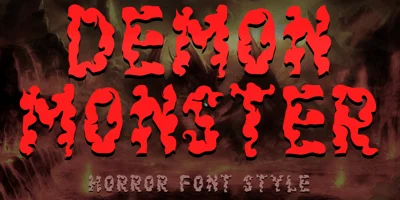
Demon Monster Font
Demon Monster Font is perfect for horror movie posters, Halloween event promotions, metal band logos, dark fantasy book covers, gothic artwork, haunted house advertisements, horror game interfaces, spooky merchandise designs, underground music venues, thriller novel titles, dark web design projects, horror streaming platform branding, and supernatural-themed marketing campaigns.
This font is exciting because it unleashes pure terror and supernatural power through its menacing letterforms that seem to crawl from the depths of nightmares themselves. The jagged edges and sinister curves create an intimidating presence that commands fear and respect, while twisted character designs evoke ancient demonic symbols and otherworldly malevolence. Each letter appears to be forged in hellfire, dripping with malevolent energy that transforms ordinary text into spine-chilling statements that haunt viewers long after they've looked away.
The Demon Monster Font family includes regular weight with complete uppercase and lowercase alphabets, numbers, punctuation marks, and special horror-themed symbols. Some versions may feature additional decorative elements like blood drops, claw marks, or demonic ornaments, along with alternate character variations that enhance the supernatural horror aesthetic.
Whether you're designing terrifying movie promotions, creating dark fantasy branding, or developing horror-themed digital experiences, Demon Monster Font delivers the spine-tingling impact your project needs to truly frighten and captivate audiences. This typeface transforms mundane text into nightmarish visions that grab attention and refuse to let go. The font's dark aesthetic makes it essential for any project requiring genuine horror appeal and supernatural atmosphere. Horror enthusiasts and designers will love how this font brings authentic terror to their creative work with its genuinely frightening character design.